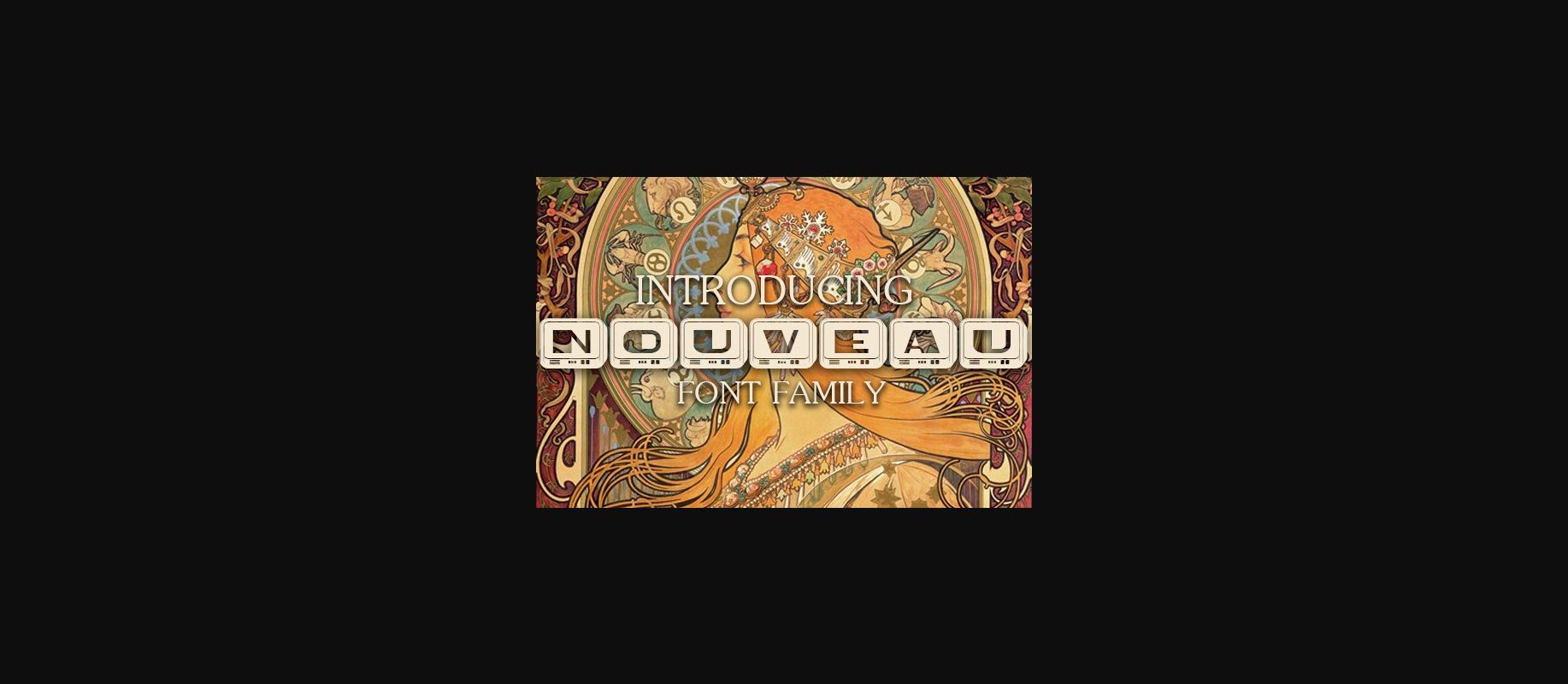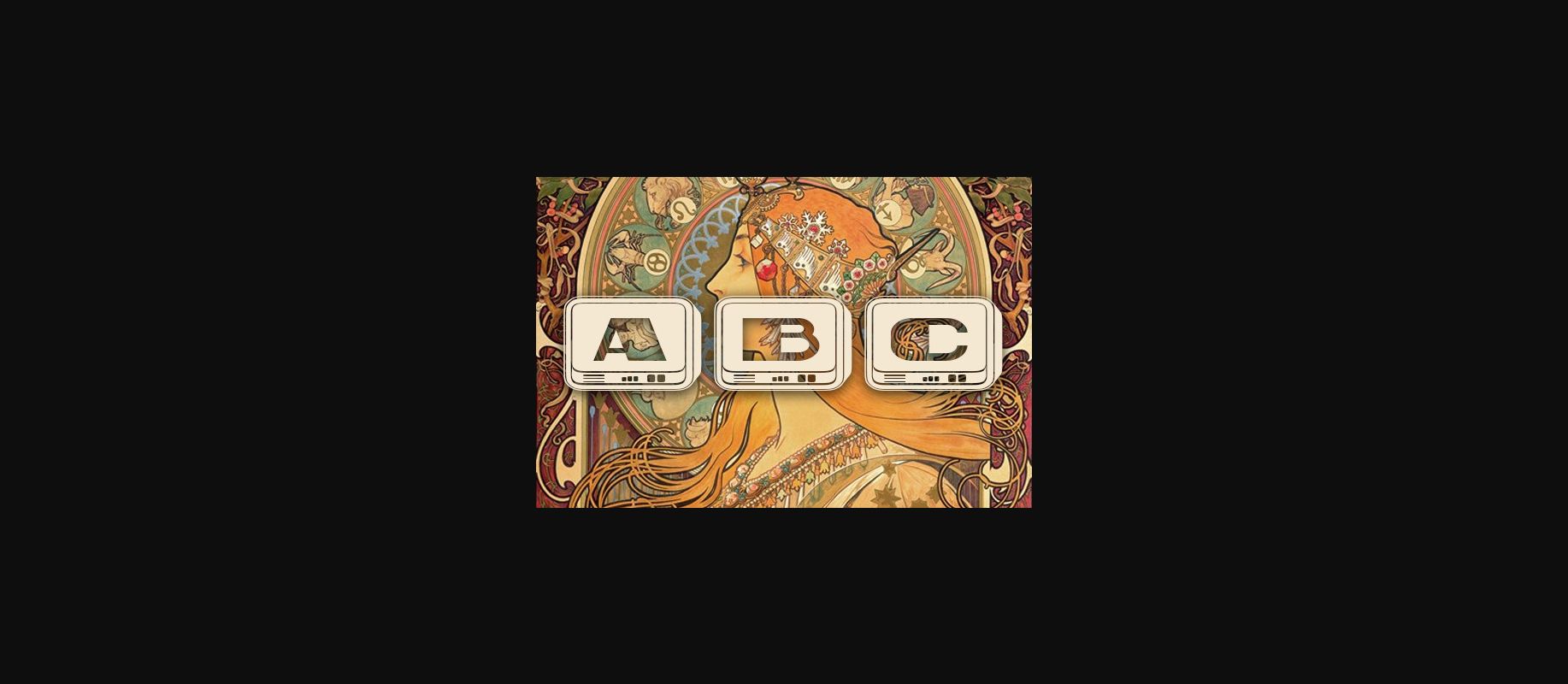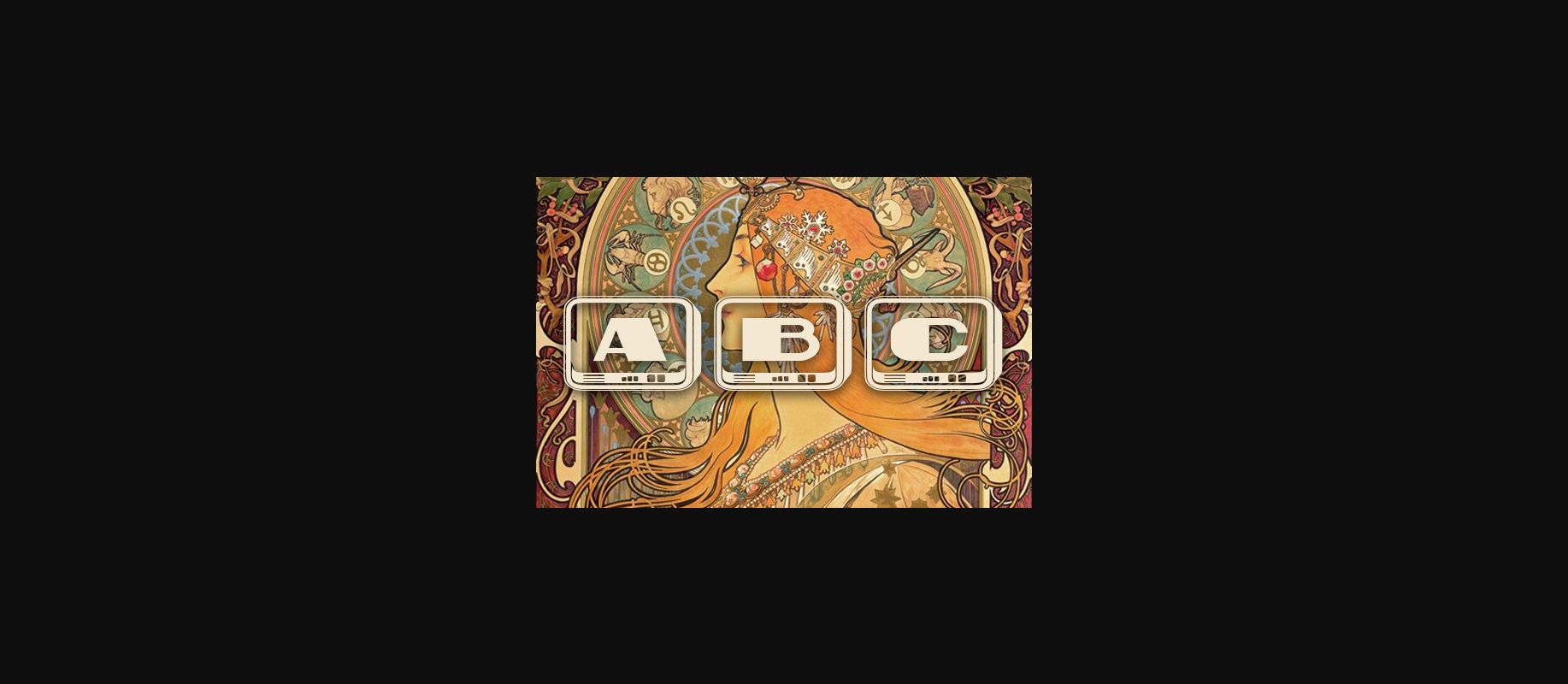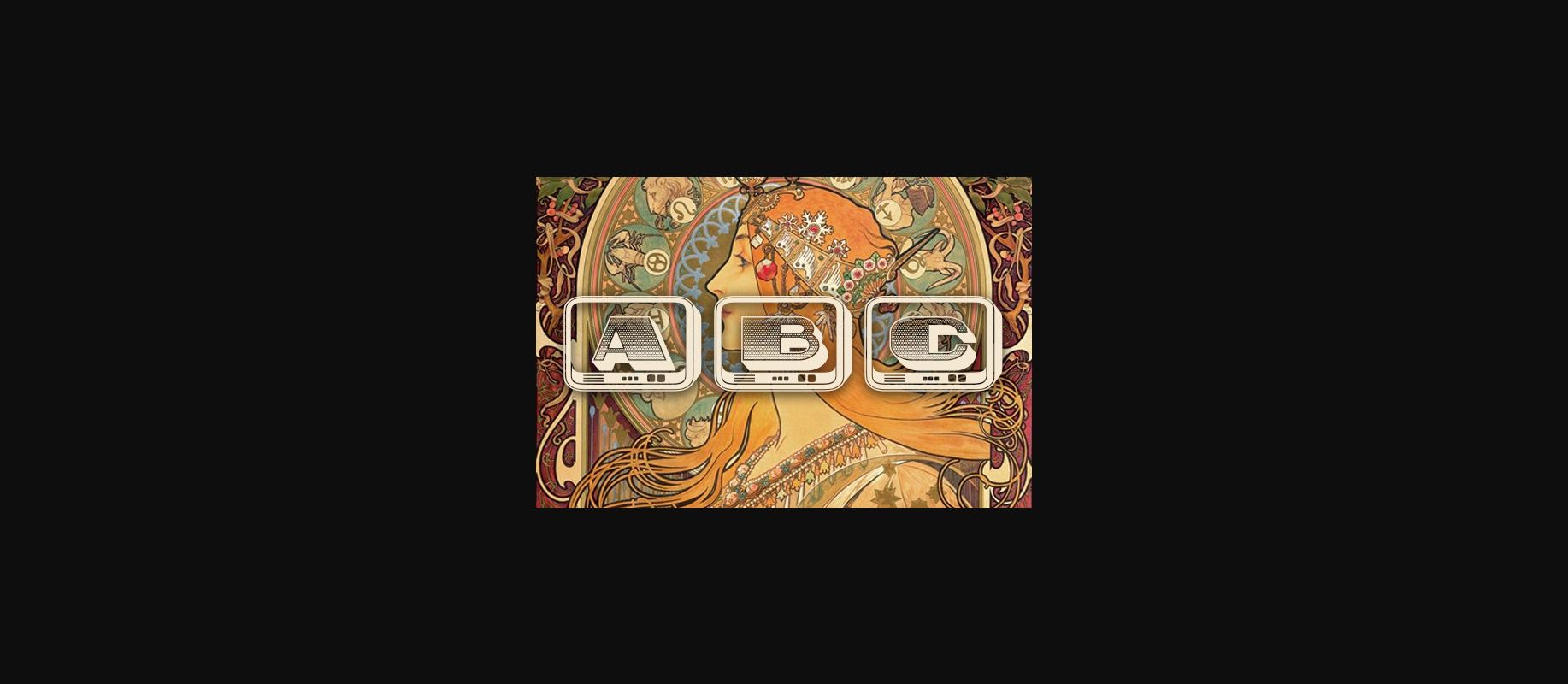
HomeDecorative FontsNouveau Font Decorative Fonts Nouveau Font FacebookXPinterestWhatsApp 1 of 6 ... Nouveau Font Poster 2... Nouveau Font Poster 3... Nouveau Font Poster 4... Nouveau Font Poster 5... Nouveau Font Poster 6... About Nouveau Font Nouveau is a cool, unique and retro styled decorative font. It will look stunning on any poster flyer or print! Use this font for your designs and explore its endless possibilities. DOWNLOAD NOW People also explored Twistko Font Saritha Font Michigan Font Baby Aletha Font Anoushka Font Parliament Font Flowkey Font Ertige Font Alfissa Font 268 0 TagsNouveauNouveau Font Previous articleRose Heart Monogram FontNext articleCactus Font LEAVE A REPLY Cancel reply Comment: Please enter your comment! Name:* Please enter your name here Email:* You have entered an incorrect email address! Please enter your email address here Website: Save my name, email, and website in this browser for the next time I comment. Personal Use Free Kanza Personal Use Free Read more about this font Persephone Free Personal Use Free Read more about this font Rothwell Personal Use Free Read more about this font Hatia Script Personal Use Free Read more about this font BLOG Free vs Paid Fonts: Why Investing in Premium Fonts Is Worth It Free vs Paid Fonts: Why Premium Fonts Are Worth It in 2025 The debate of free vs paid fonts continues in the design world. While... To increase your work productivity, choose the most readable fonts. Fonts That Capture the Spirit of New York City Top 10 Handwritten Fonts That Elevate Your Designs